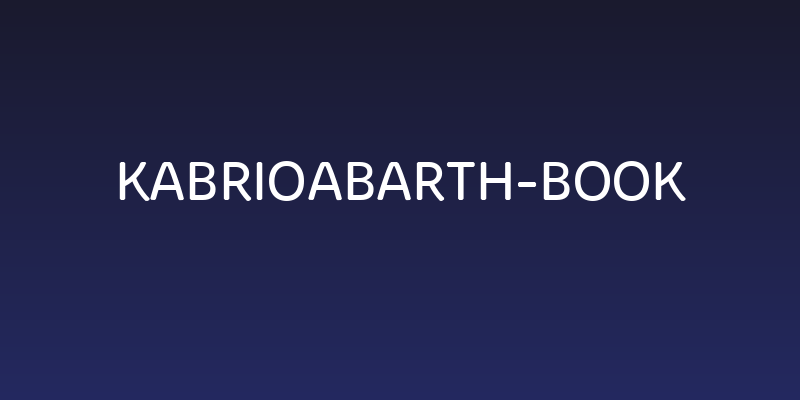
KabrioAbarth-Book Font
KabrioAbarth-Book Description
This font features a clean and modern sans-serif style with smooth curves and a uniform stroke width. The characters are well-balanced, offering a harmonious appearance that is easy to read. The uppercase letters are slightly taller than the lowercase, providing a clear distinction between the two. The numerals and special characters maintain the same design consistency, making them blend seamlessly with the alphabet. The overall design is sleek and contemporary, suitable for various applications where clarity and simplicity are desired.
| Proposed Projects | Ideal for branding, web design, user interfaces, and print media where a clean and modern look is essential. |